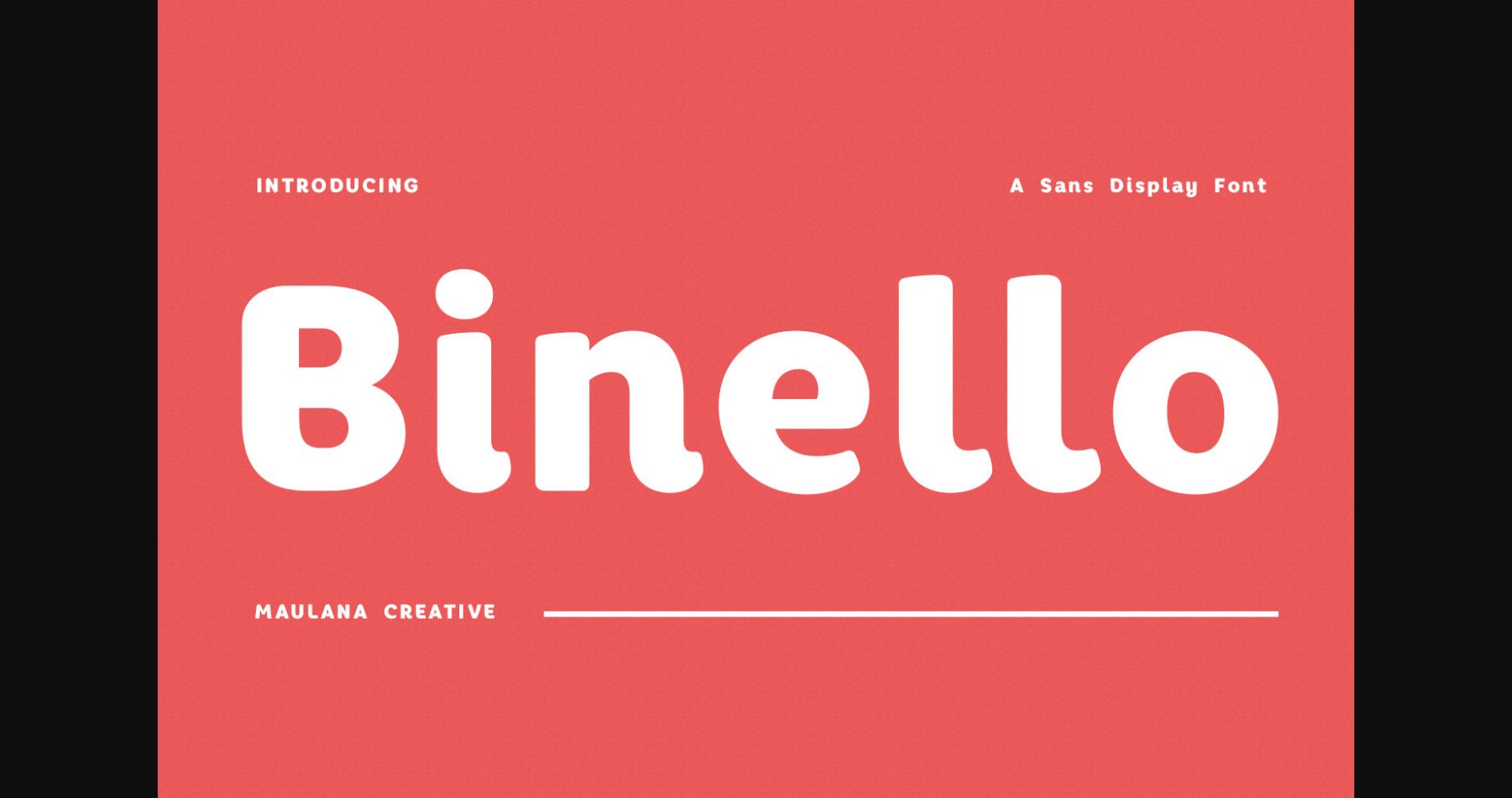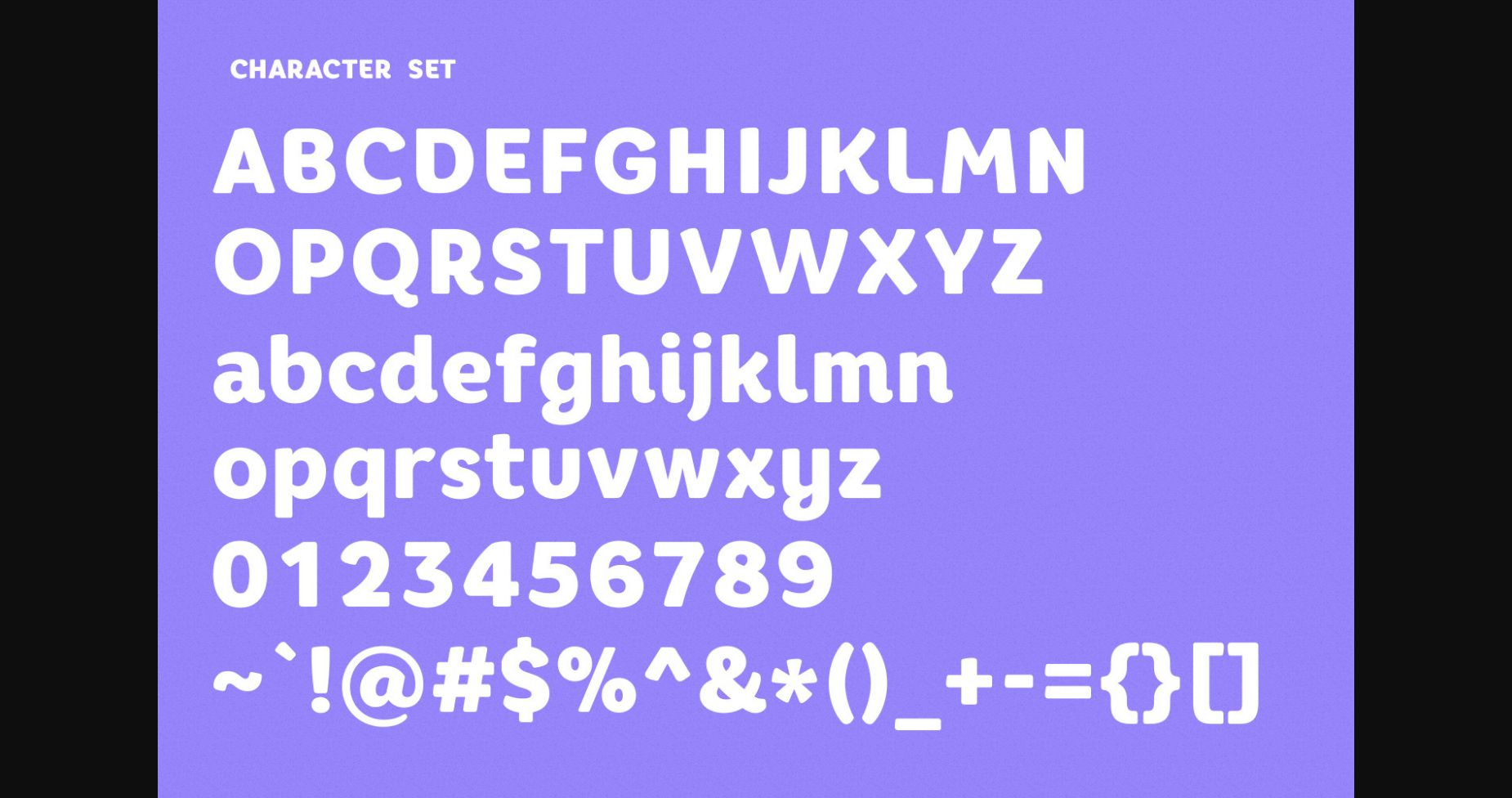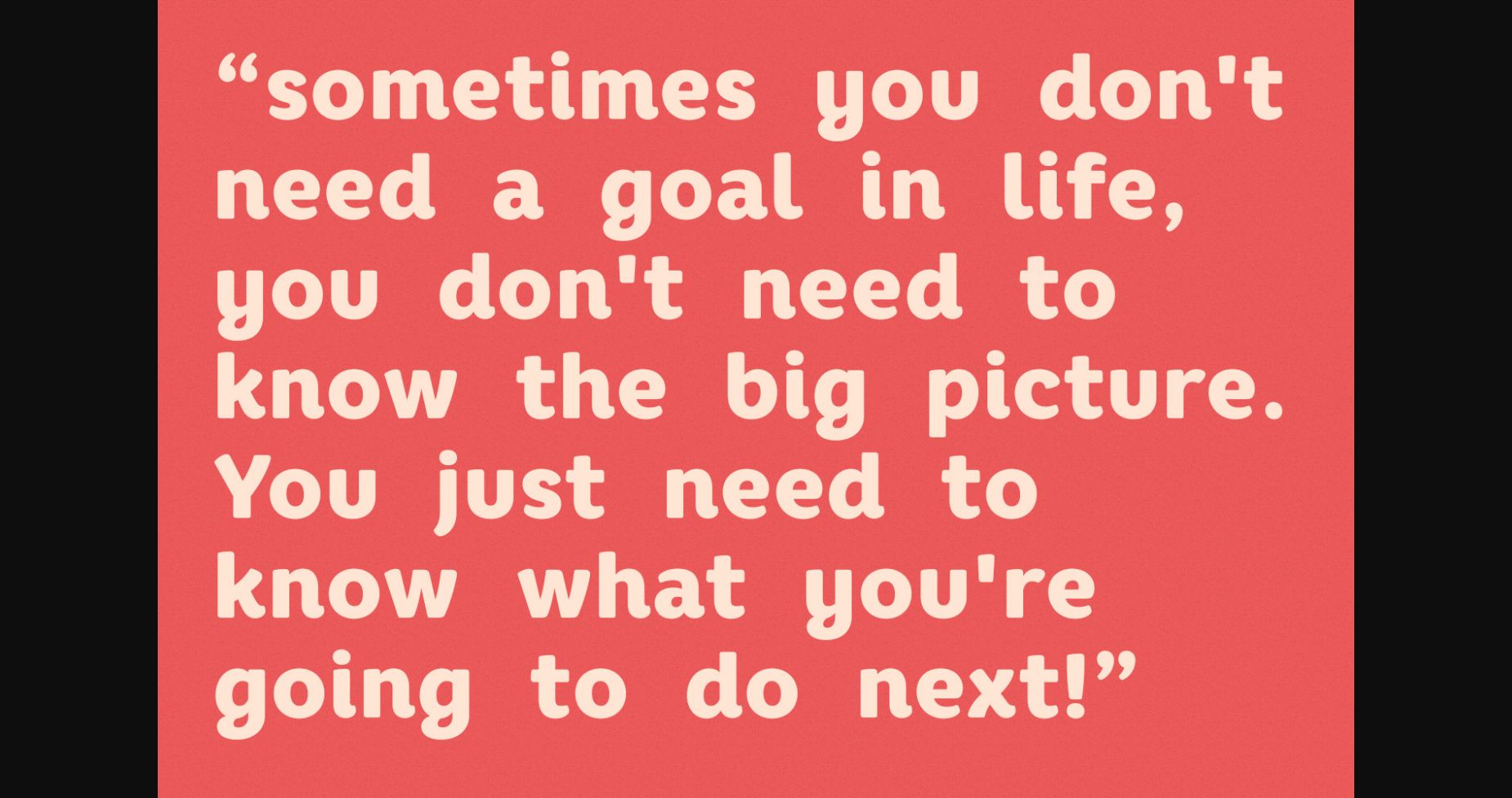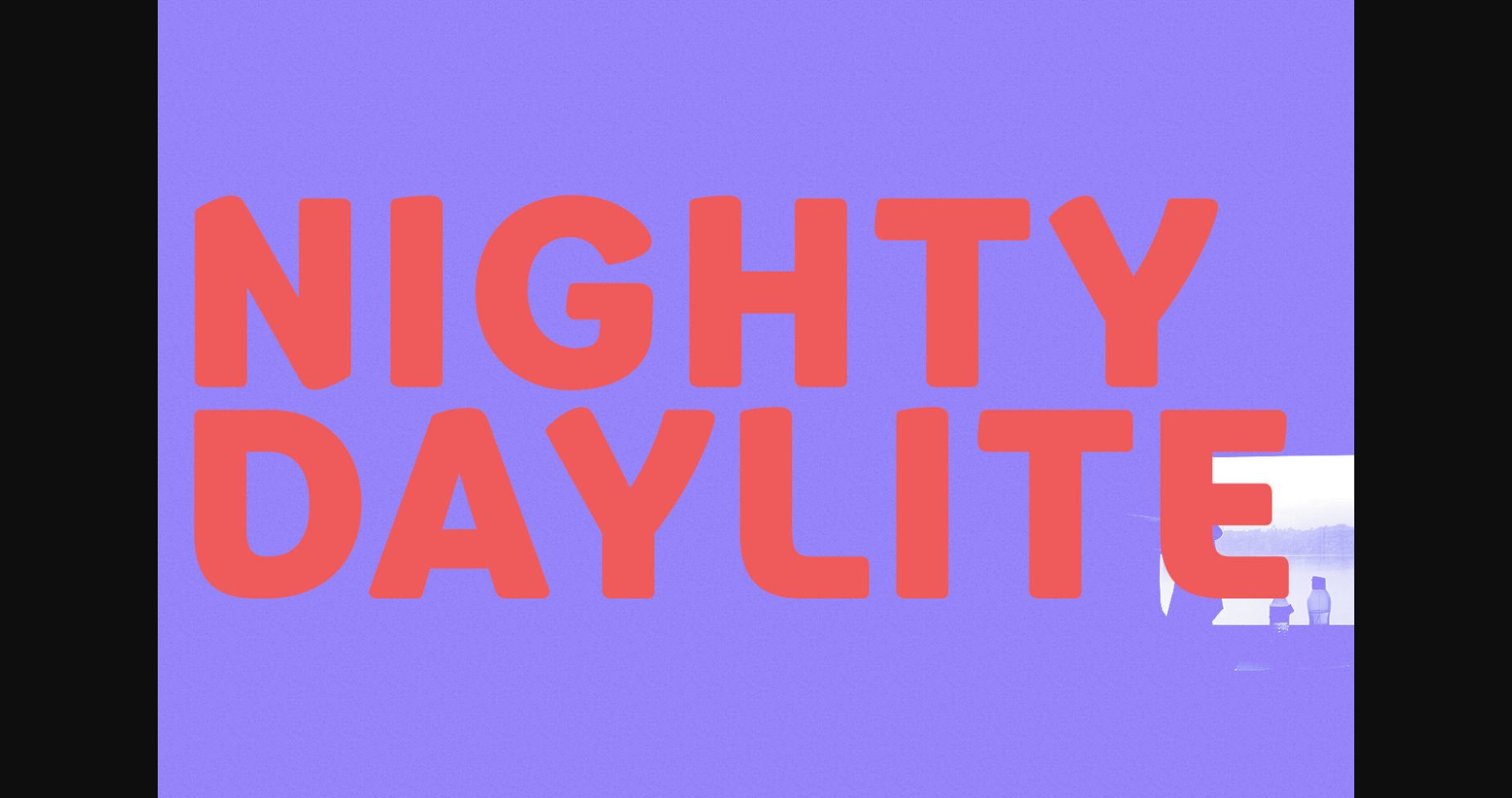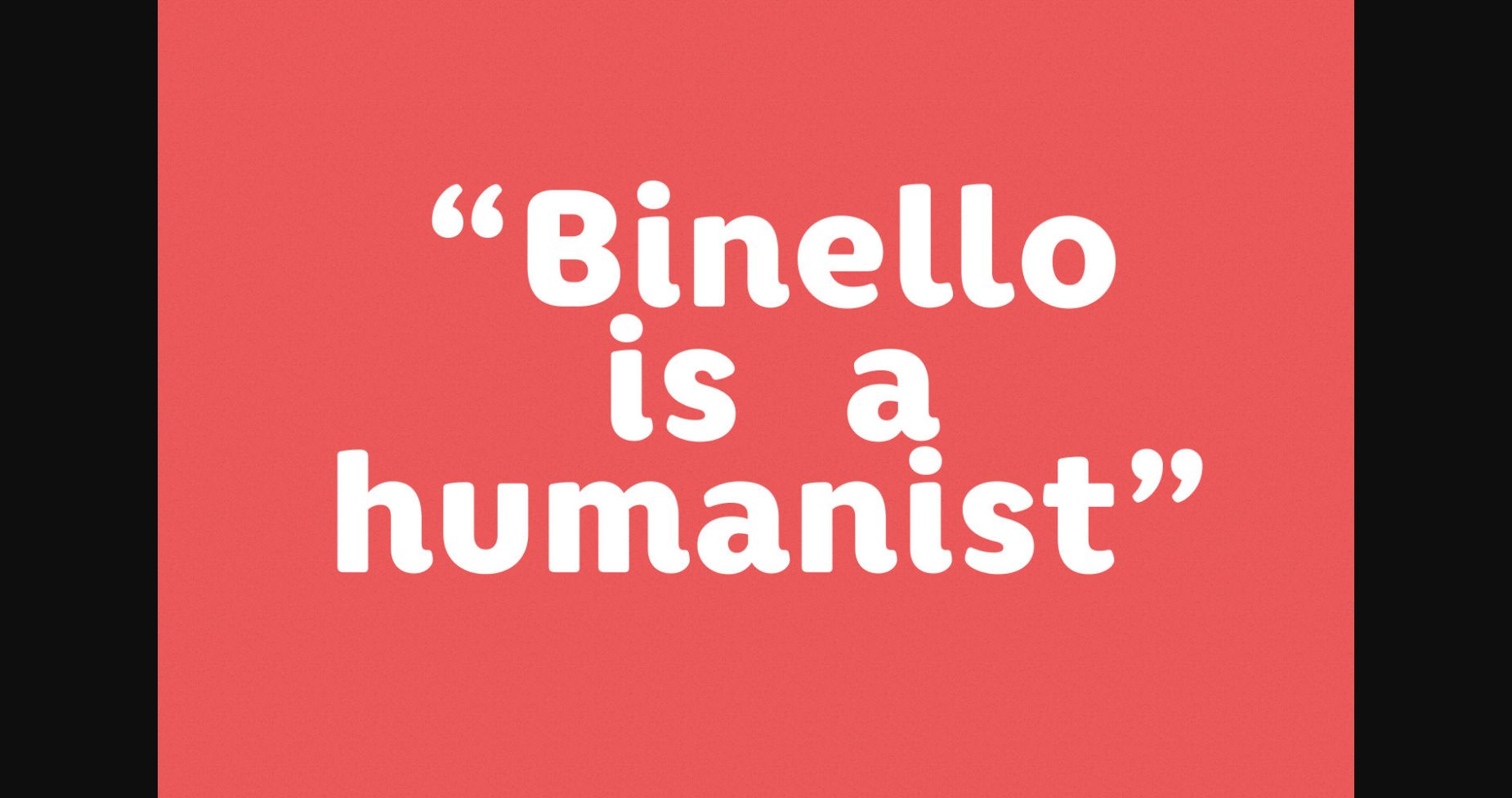
About Binello Font
Binello is a natural, semi-geometric sans serif font. Contemporary and fresh, it is perfect for any design you wish to create. Add it to your creative projects and make them outstanding!